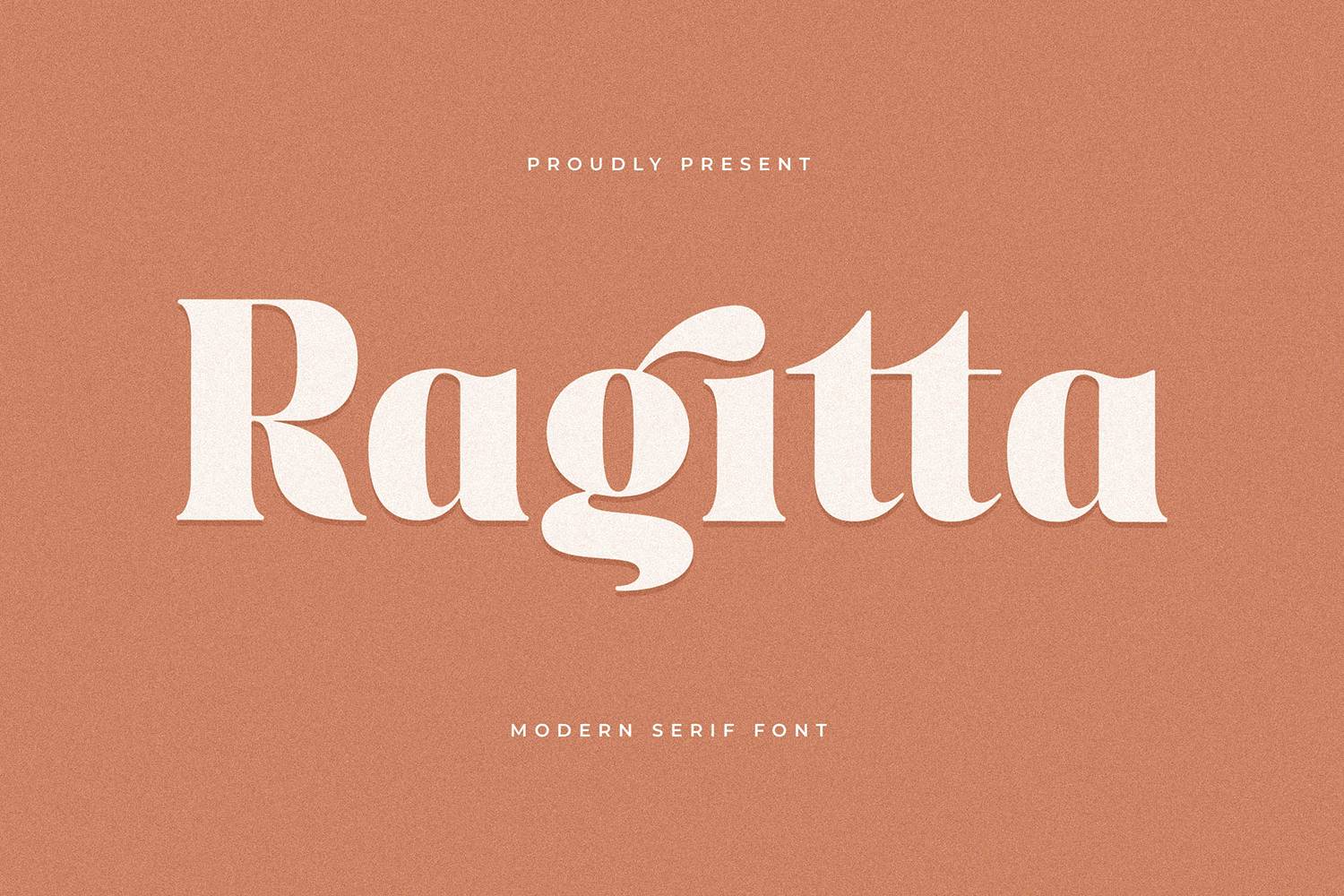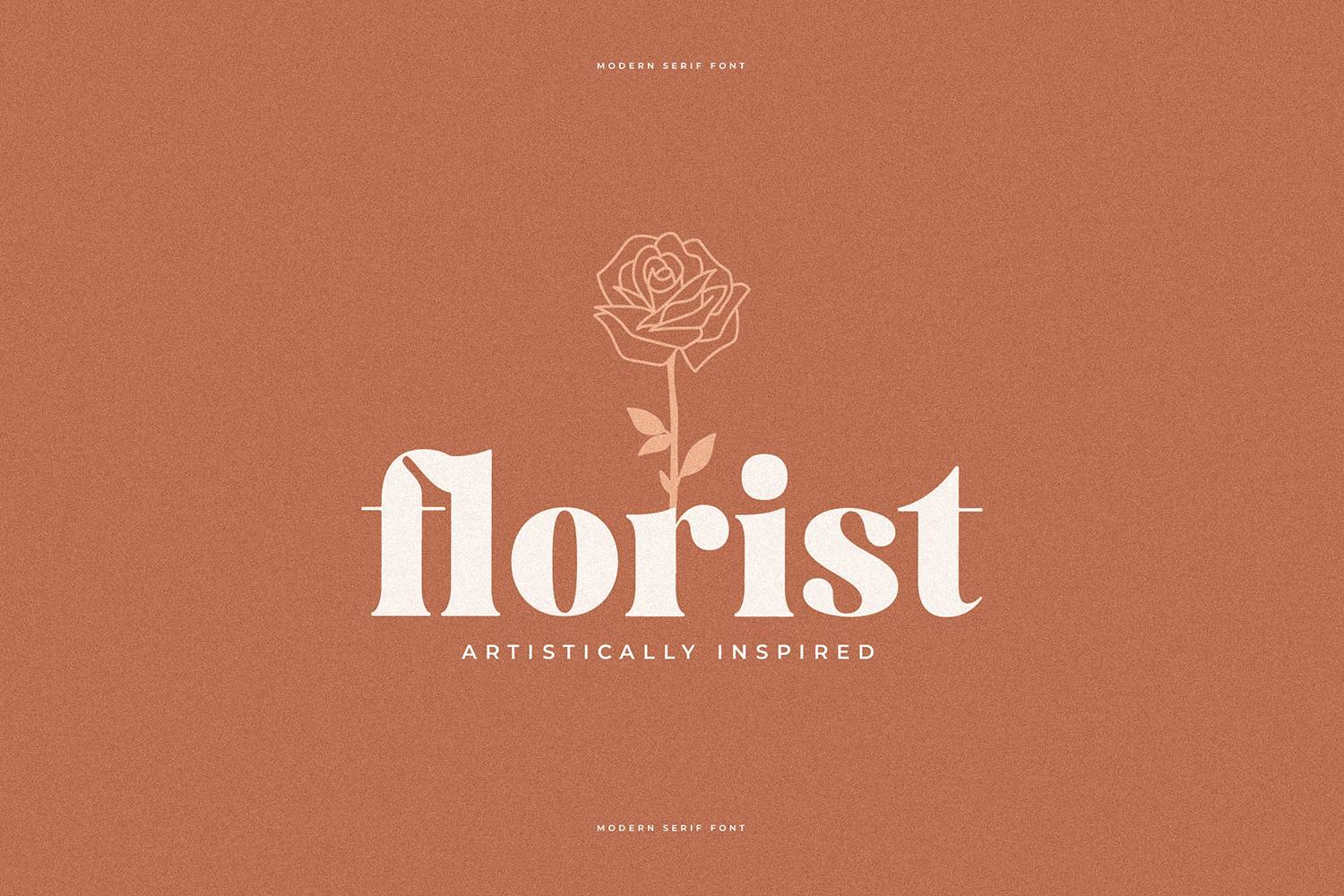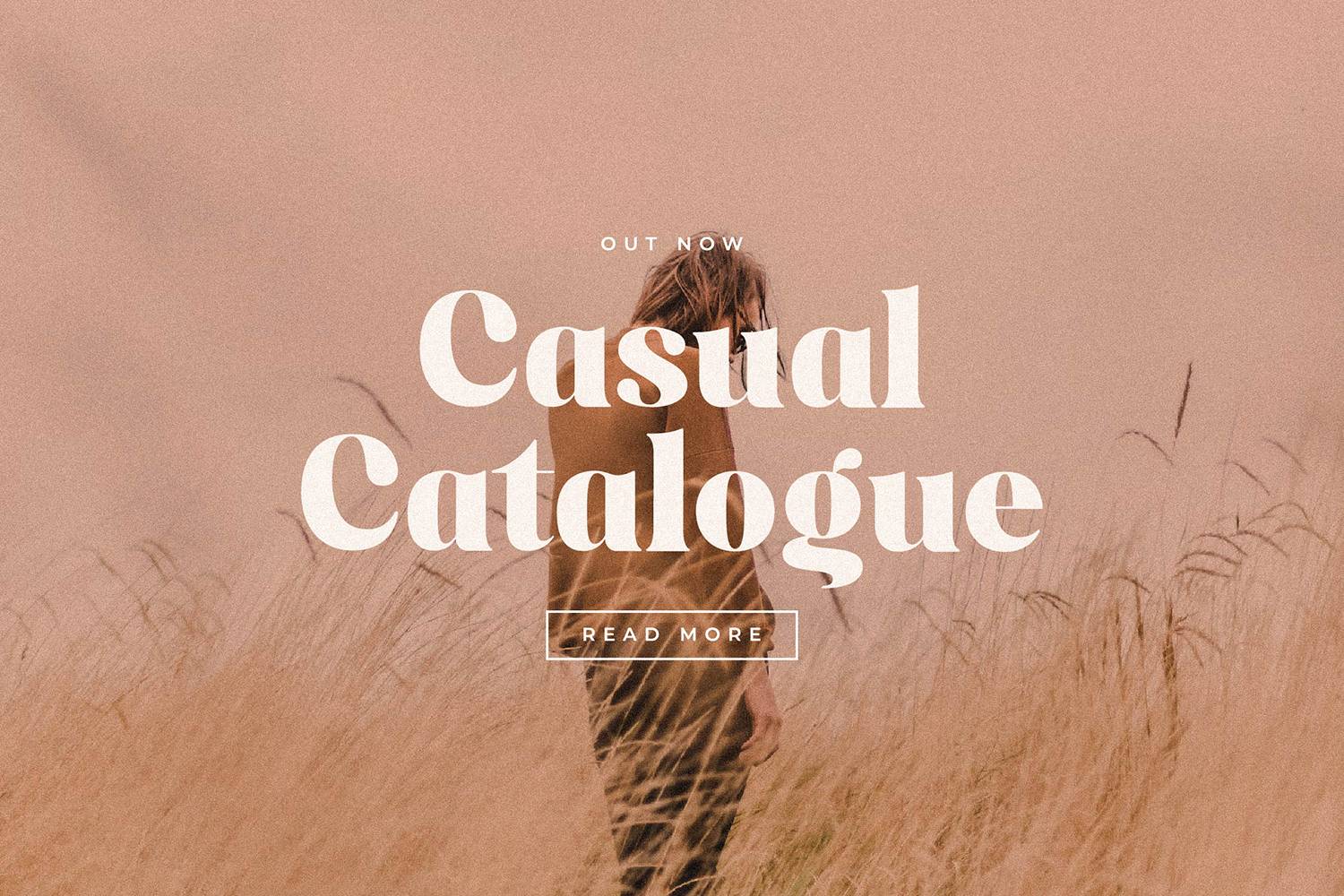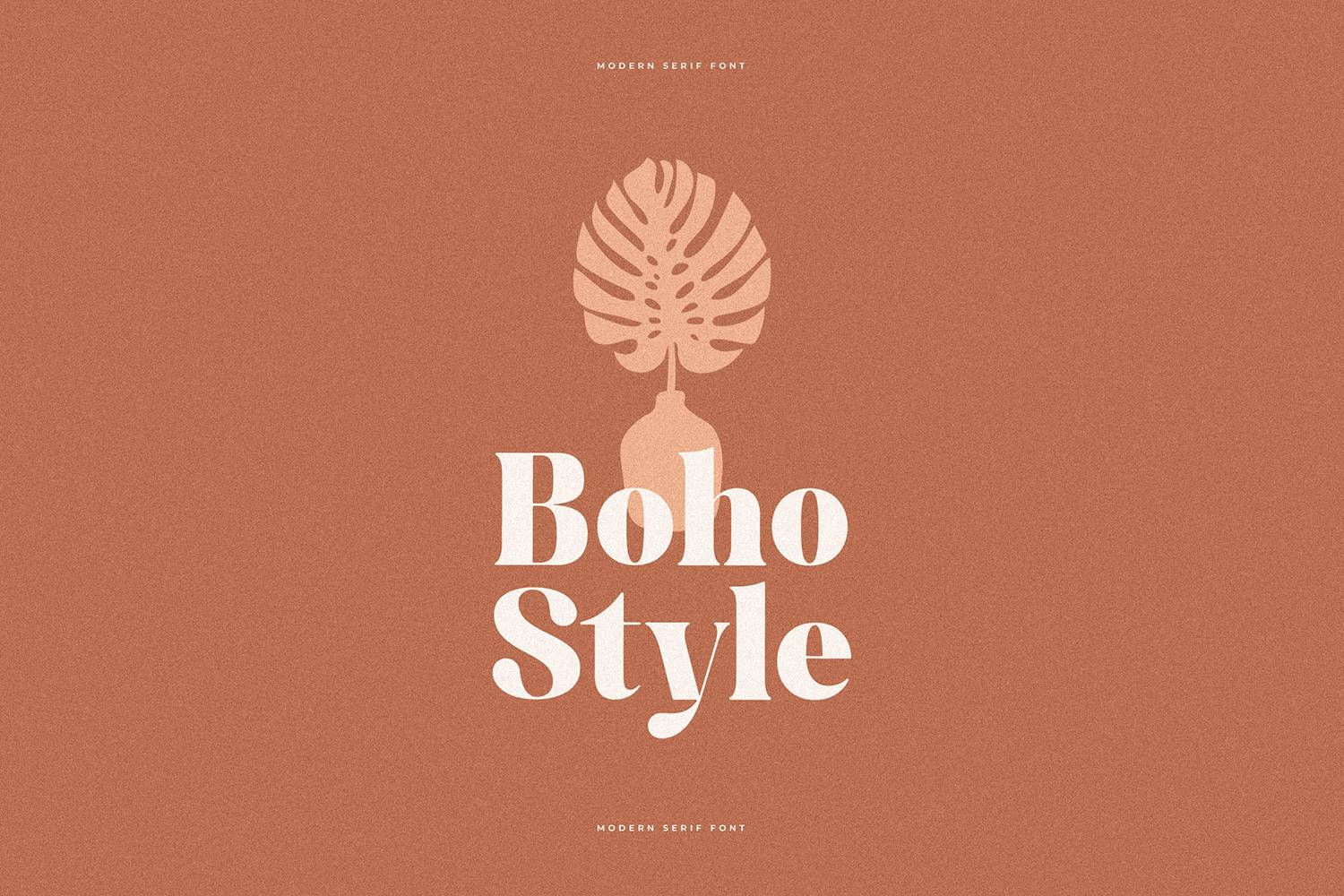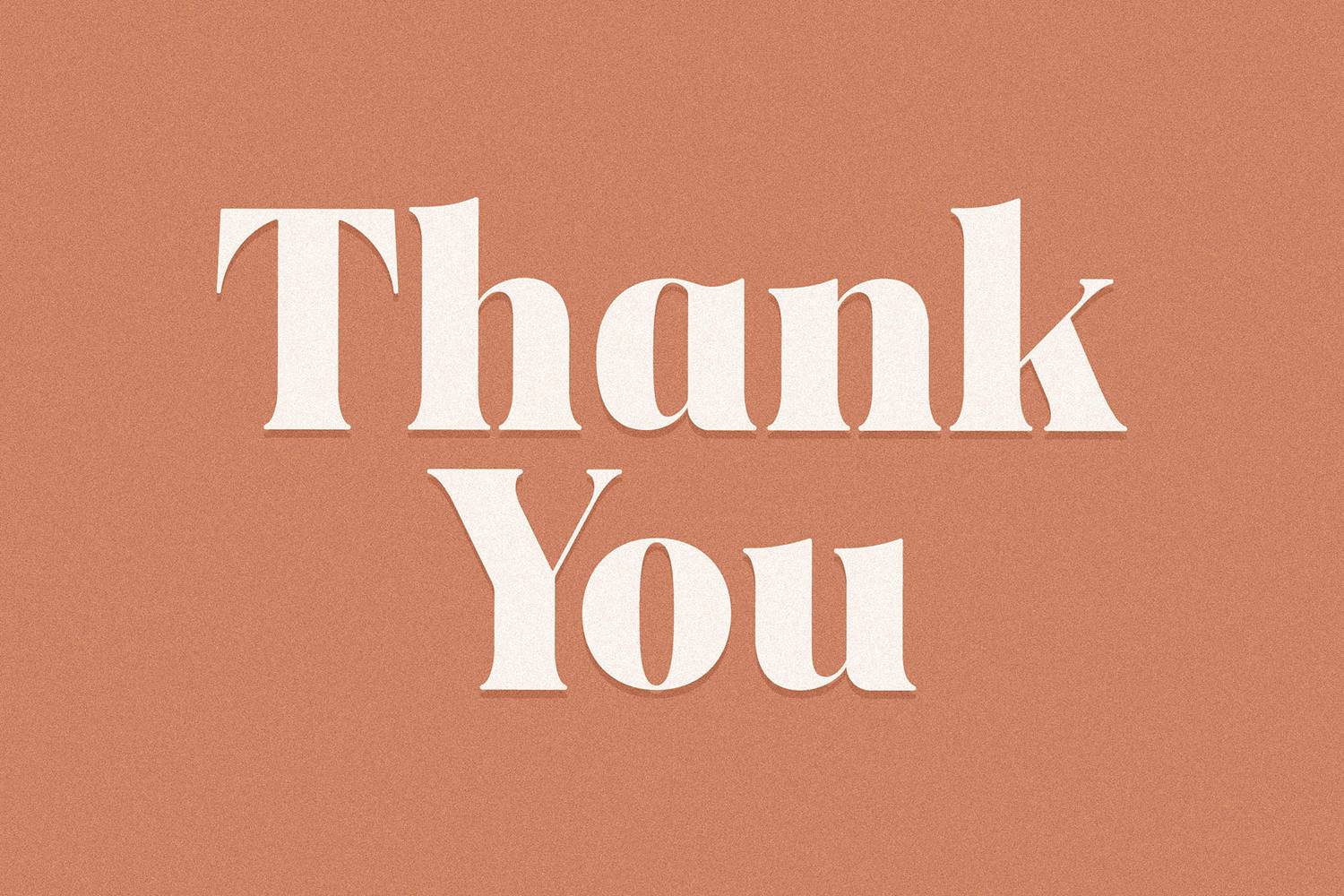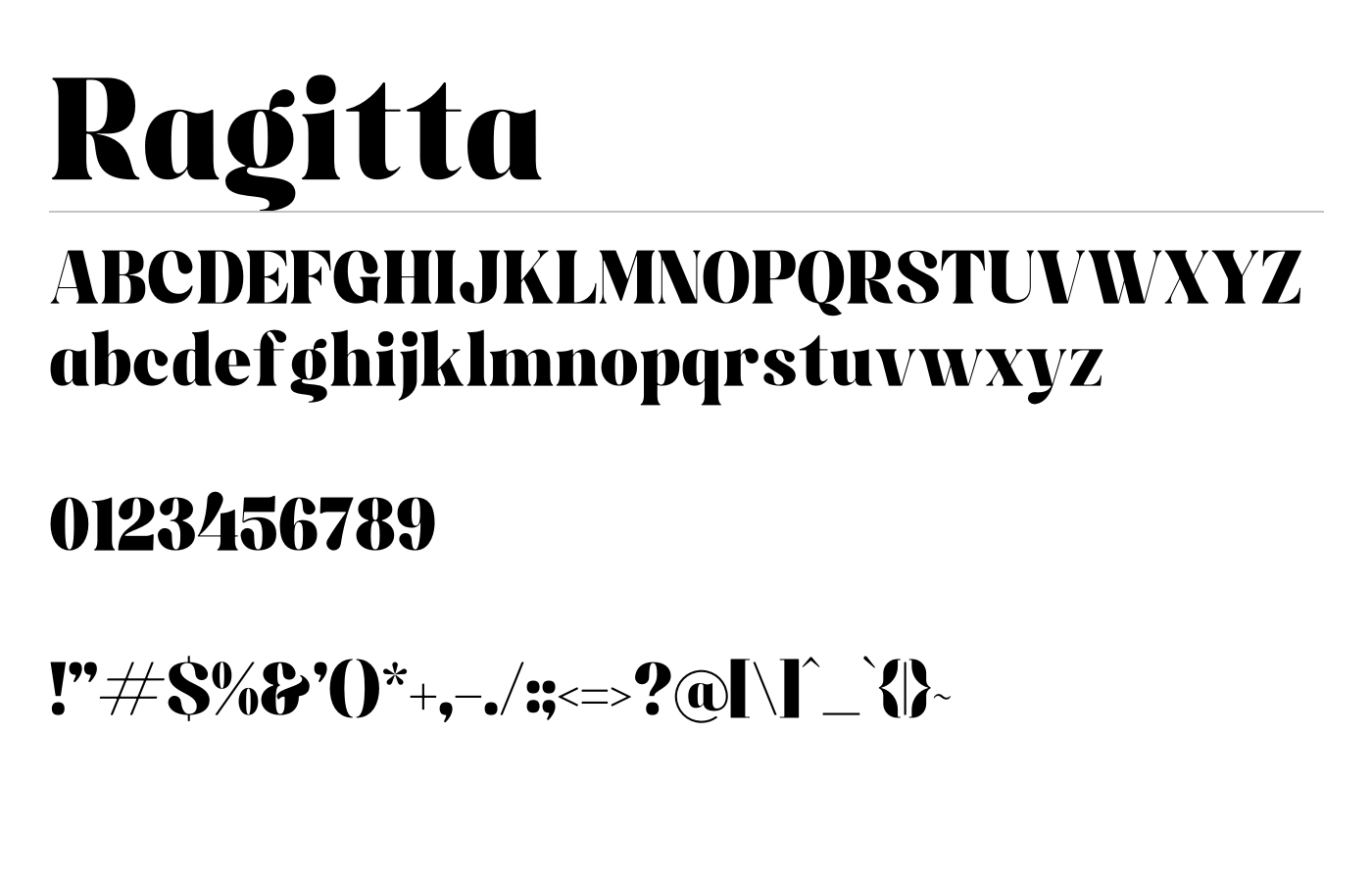
Ragitta is a bold, modern serif font with high contrast between thick and thin strokes, featuring sharp, bracketed serifs that add a touch of elegance and sophistication. Its tall, condensed letterforms and unique details—like the single-story lowercase 'g' and distinctive ampersand—make it ideal for striking headlines and luxury branding. This font works wonderfully in editorial design, fashion packaging, and anywhere a bold yet refined statement is needed.
Ragitta Font